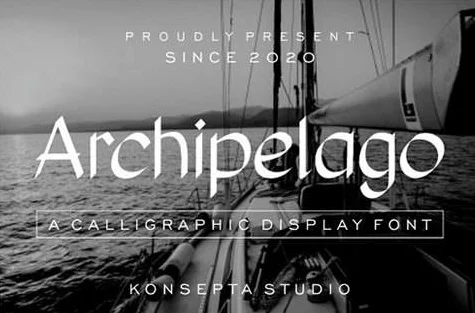
Archipelago Font
Archipelago Font is perfect for a wide range of design projects including tropical branding, travel agency logos, resort marketing, island-themed packaging, vacation posters, beach event invitations, coastal restaurant menus, and adventure tourism graphics. Its breezy character makes it an exceptional choice for projects that evoke relaxation, exotic destinations, and the carefree spirit of island life.
What makes Archipelago Font exciting is its remarkable ability to transport viewers to paradise through thoughtfully designed typography. The font features flowing letterforms with organic elements that capture the essence of tropical landscapes, ocean breezes, and sun-soaked island adventures. Its distinctive personality creates an instant connection with wanderlust and relaxation, making it perfect for brands targeting travelers, vacation seekers, and anyone dreaming of escape to beautiful destinations.
Archipelago Font comes in multiple font families including Regular, Bold, Light, Decorative, Textured, and various stylistic alternates. These diverse options provide designers with creative flexibility to establish the perfect mood and atmosphere while maintaining the font's characteristic island charm across different applications and visual contexts.